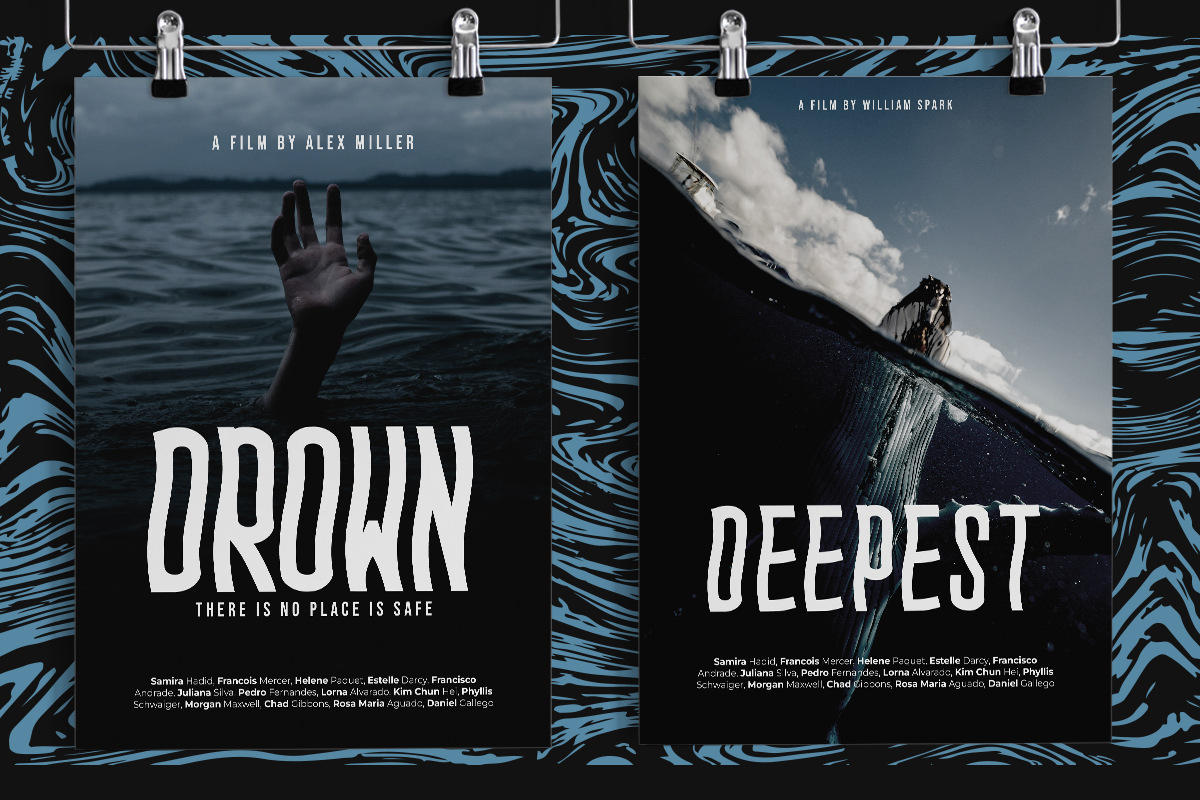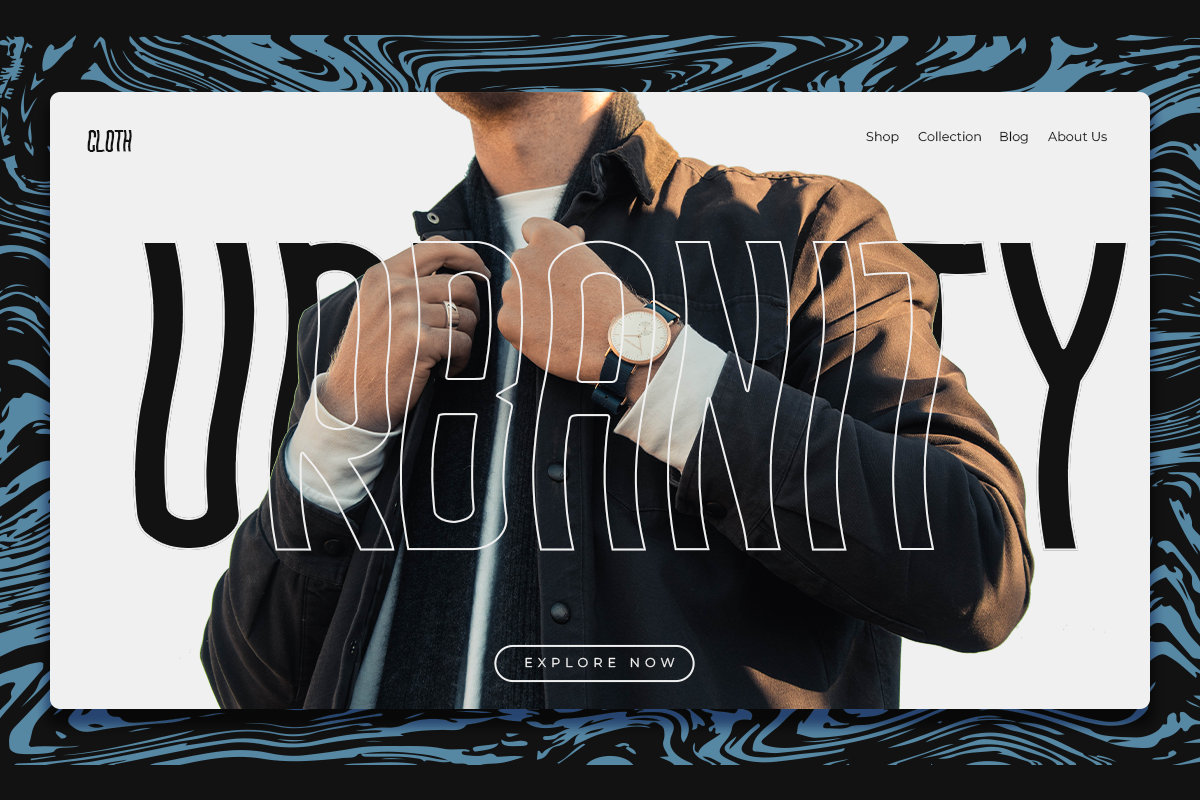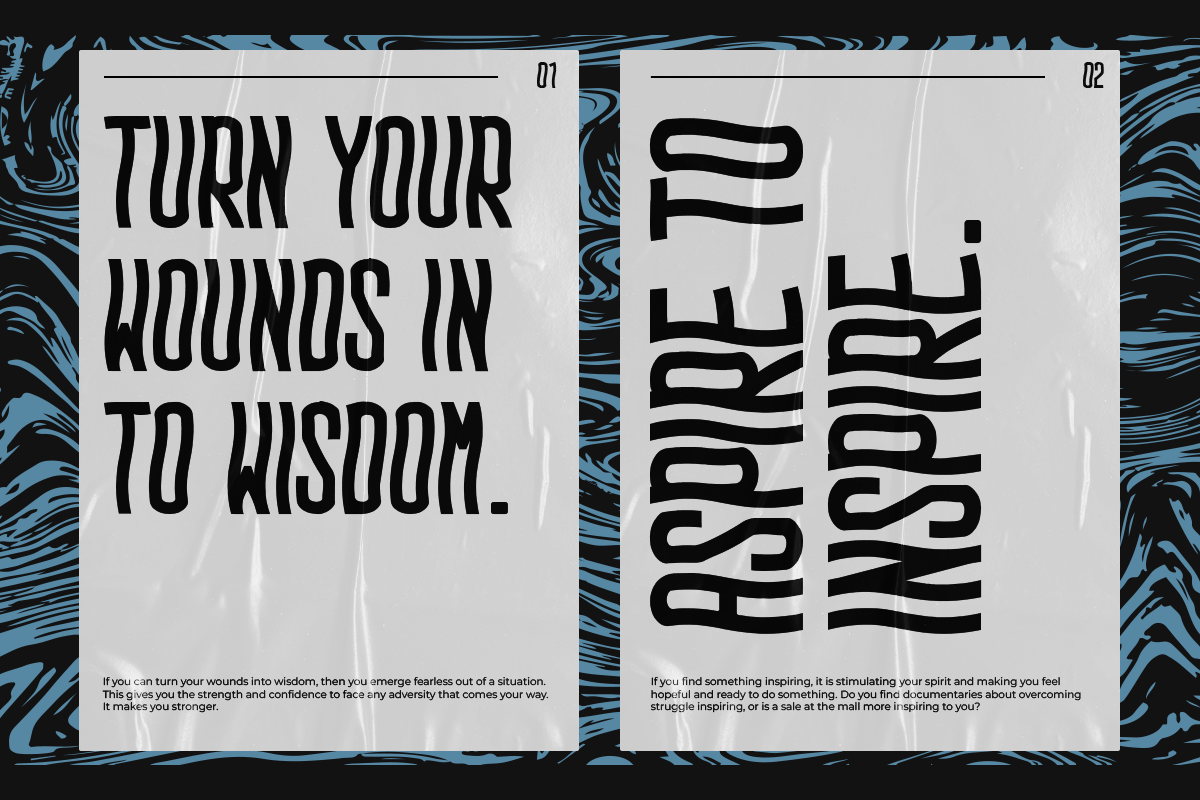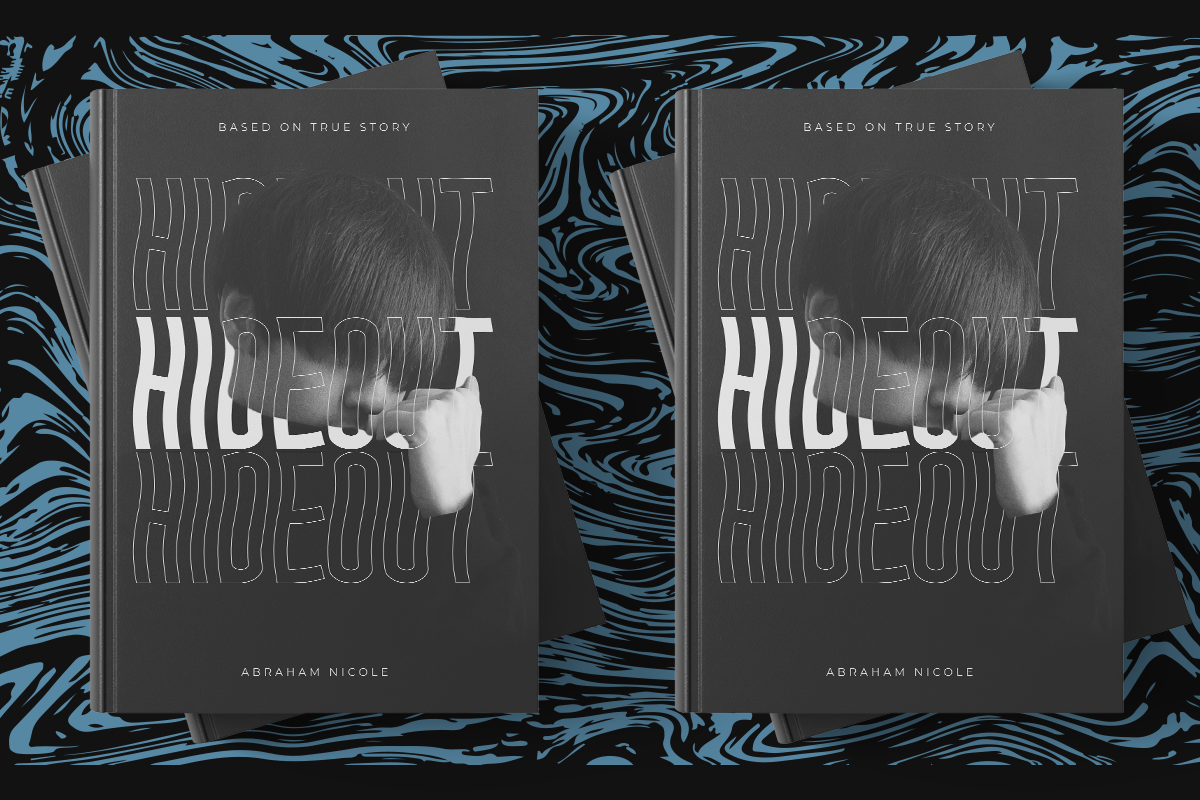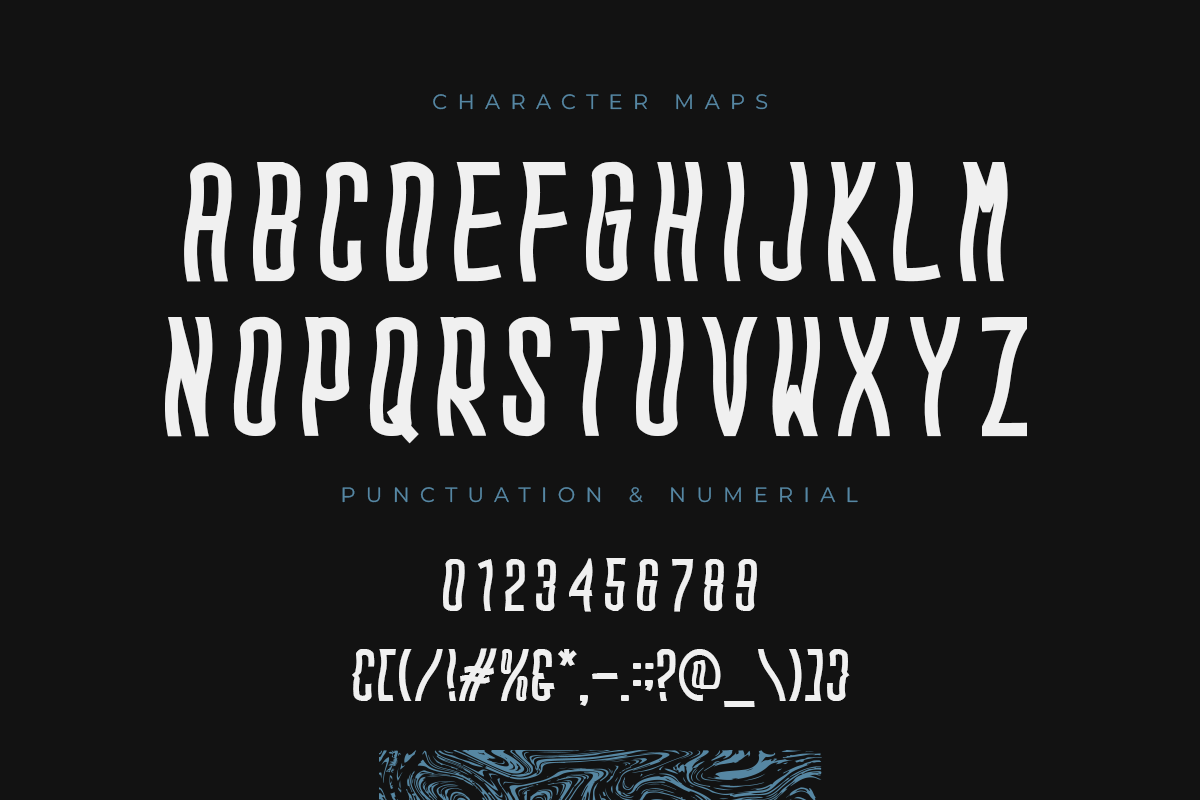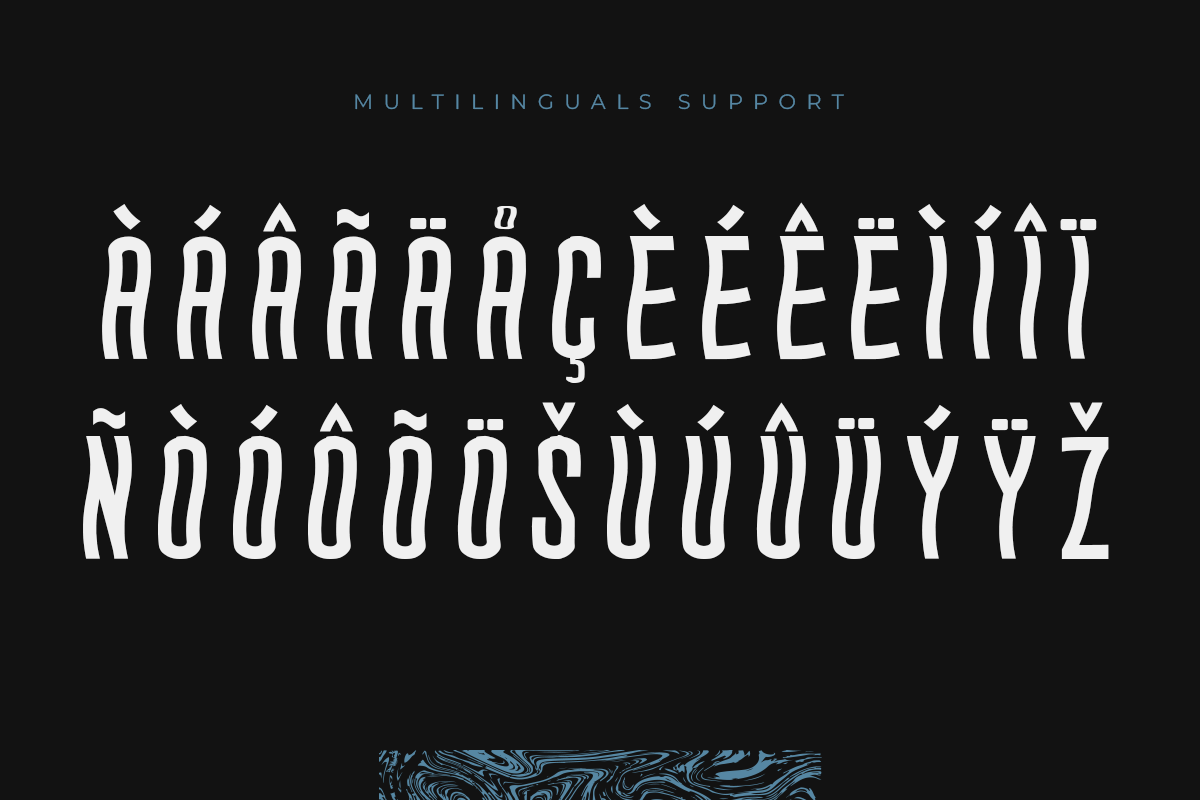
Seghoro Wavy Decorative Font is a typeface with a unique combination. Decorated with an impressive appearance, this typeface inspired by the image of sea waves is suitable for all kinds of products that want to emphasize a calm, complicated and mysterious impression. This different typographical expression will leave an unforgettable impression on the mind of anyone who sees it. Seghoro Wavy is part of the legible font, because of its simple and modern shape without any additions. You can use this font for all printing purposes, such as movie posters, banners, book covers, and novels. When Seghoro Wavy is planted on several items, this fun and eye-catching typography design will catch everyone's attention. Because of this, it is one of the best fonts to use for any product targeted at adults. Seghoro Wavy Decorative font can be used effectively in the digital world. This font is also suitable for individuals and companies who want to create advertising promotions for the brands they will market. Clothing brands are applicable when using this font in their marketing. Our display fonts collection compatible to use as Figma fonts, Canva fonts, Freepik Fonts, and Adobe Fonts. They also work as Windows Fonts, and Apple Fonts. For your social media needs, you can use and install fonts in our collection of display and decorative typography to use as Instagram Fonts, Facebook Fonts, and Twitter Fonts.